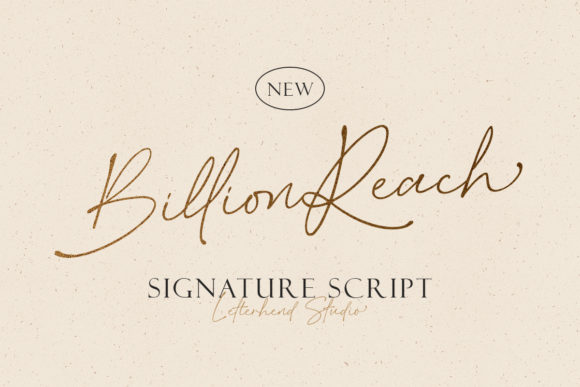
Journey into the world of Billion Reach, a captivating script font family that exudes elegance and romance. Let your imagination soar as you unveil its beauty, perfectly suited for a myriad of creative endeavors.
With Billion Reach, your designs will blossom into works of art. Its graceful strokes and varying baseline create a dynamic composition that dances across the page, capturing the attention of your audience. Each letter is meticulously crafted, boasting smooth lines, gorgeous glyphs, and stunning alternates that add a touch of sophistication to your creations.
Billion Reach is the perfect choice for those seeking to add a personal touch to their designs. Whether you're crafting wedding invitations, thank-you cards, heartfelt quotes, or eye-catching logos, this font will elevate your work to new heights. Its versatility extends to business cards, greeting cards, and any project that calls for a handwritten flair.
With Billion Reach, your designs will radiate warmth and charm, leaving an unforgettable impact on those who behold them. Its romantic essence will infuse your creations with a timeless appeal that transcends trends, making them cherished keepsakes for years to come.
Don't miss this opportunity to embrace the magic of Billion Reach. Its enchanting style will transform your designs into captivating masterpieces that speak to the heart. Let your creativity flourish as you explore the limitless possibilities of this extraordinary font family.